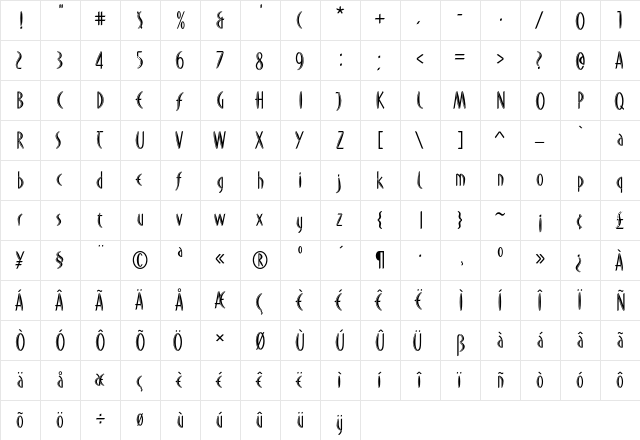
DuMoore Inline
DuMoore is built around its visual character rather than neutral utility — its distinctive forms are designed to make an impression at display sizes.
Font Pairing: Pair with a clean neutral sans-serif for body copy to let DuMoore's character lead without overwhelming the composition.
Pro Tip: Treat DuMoore as the centrepiece of your typographic hierarchy. One strong heading set in a decorative face can carry an entire layout.